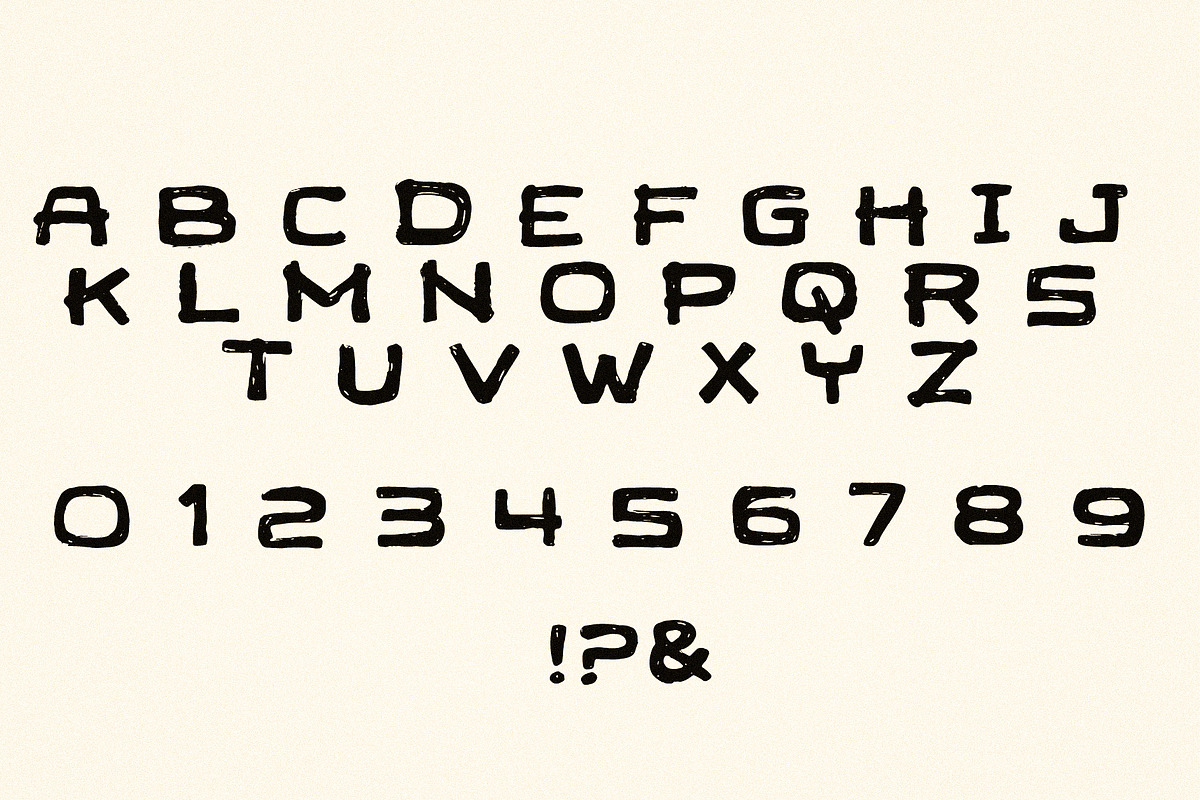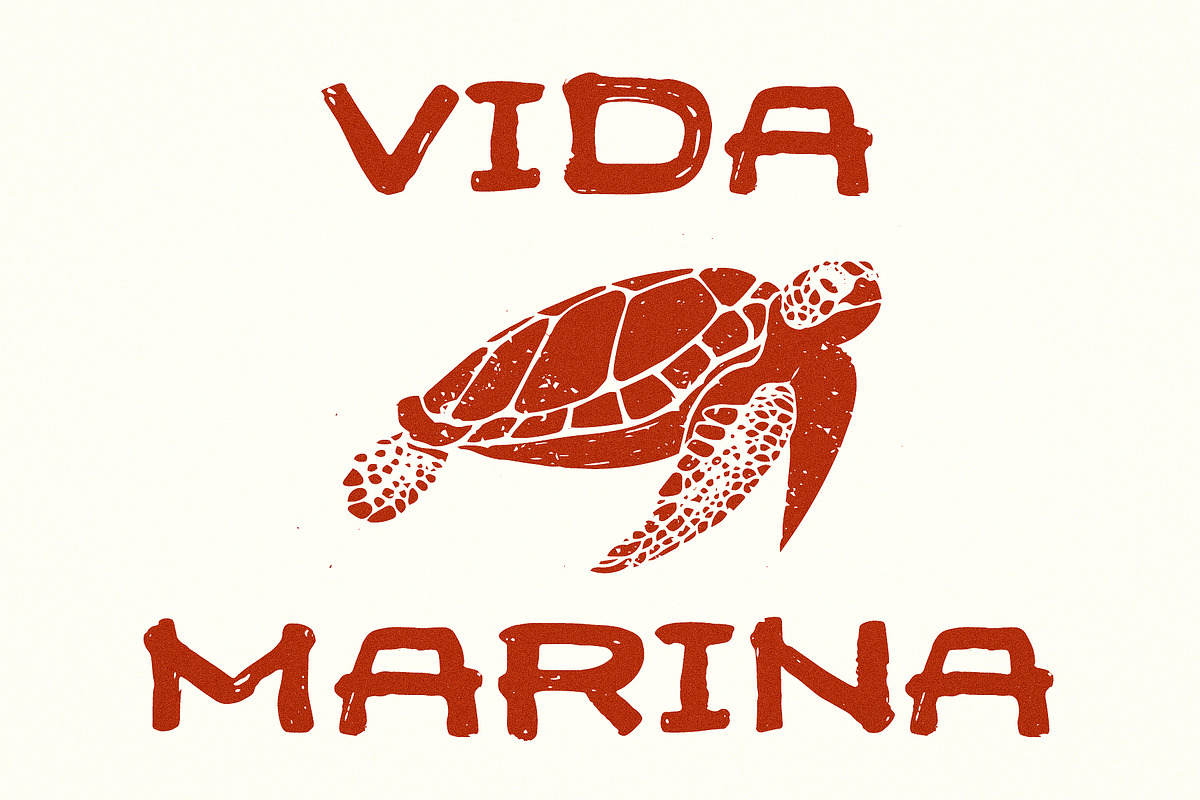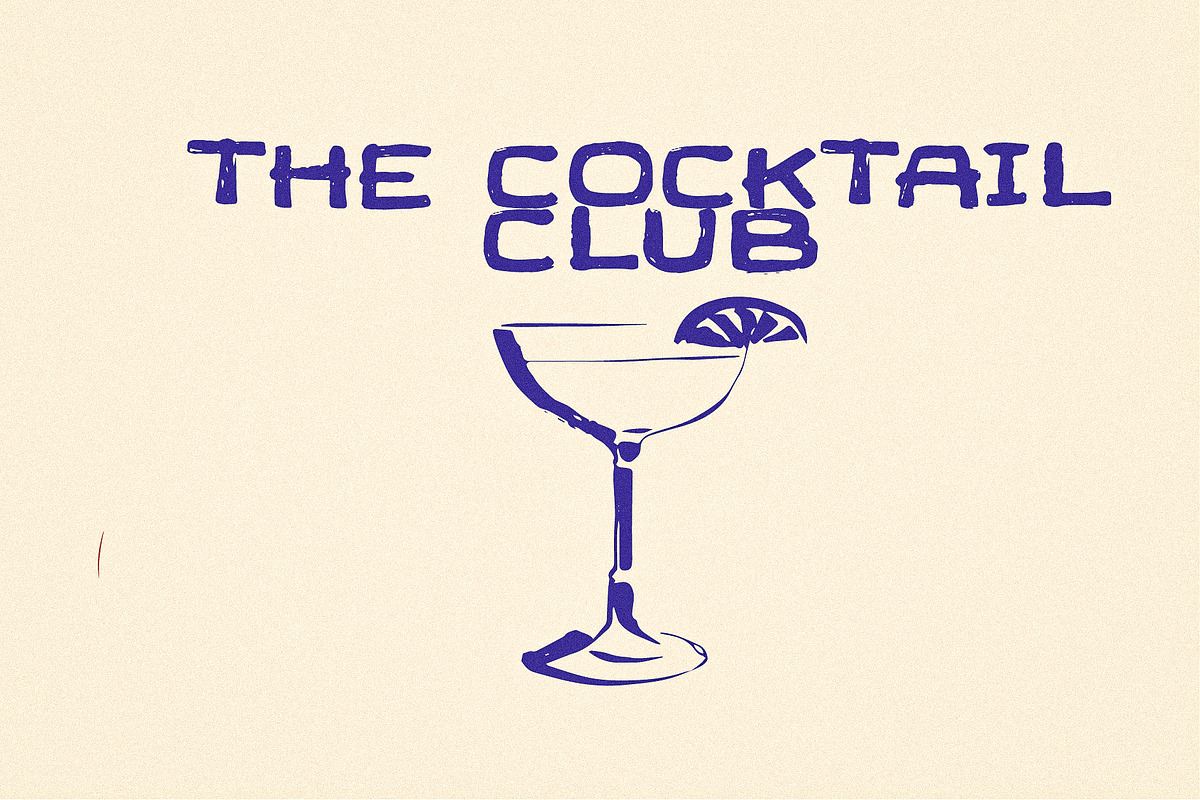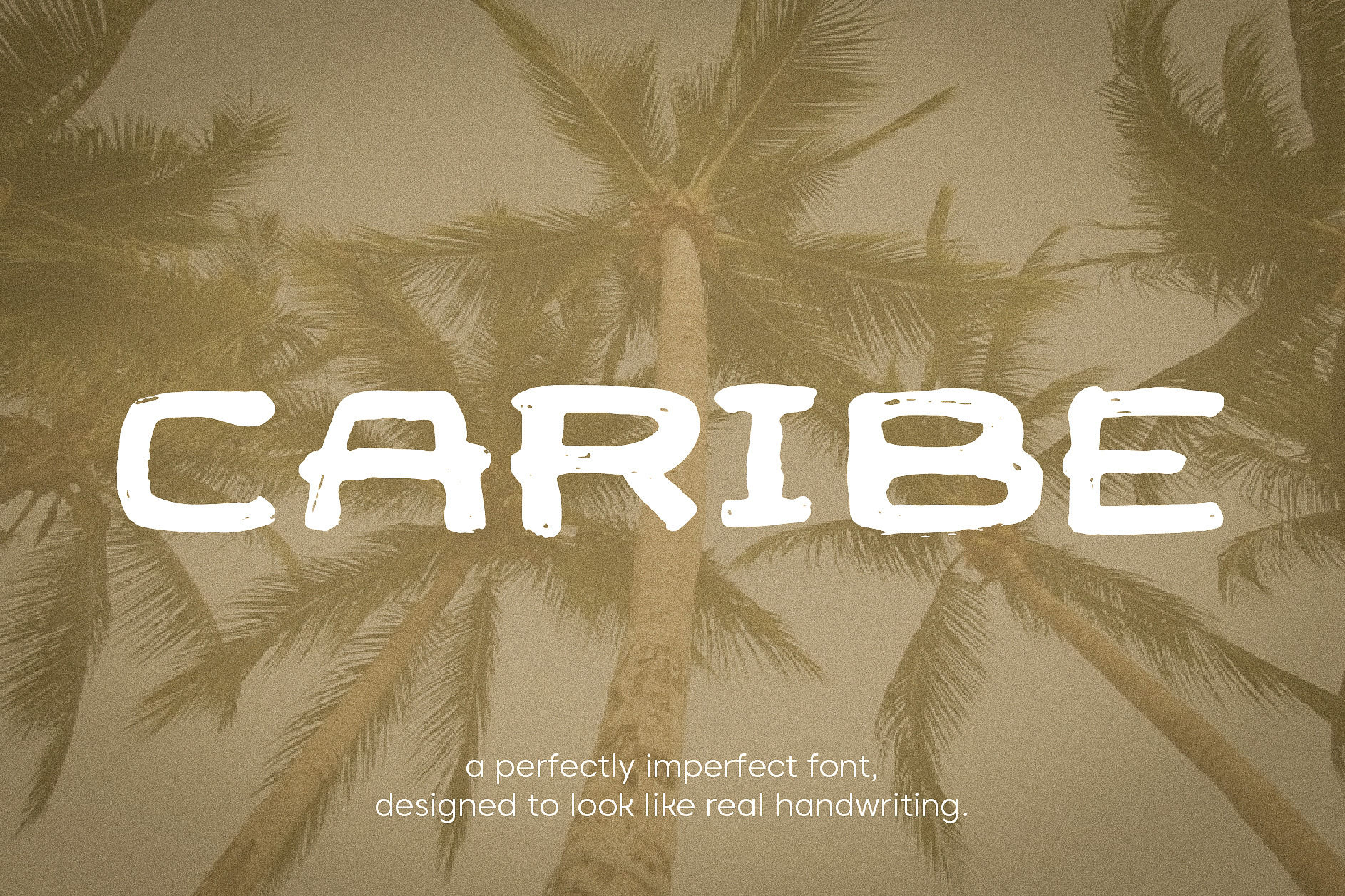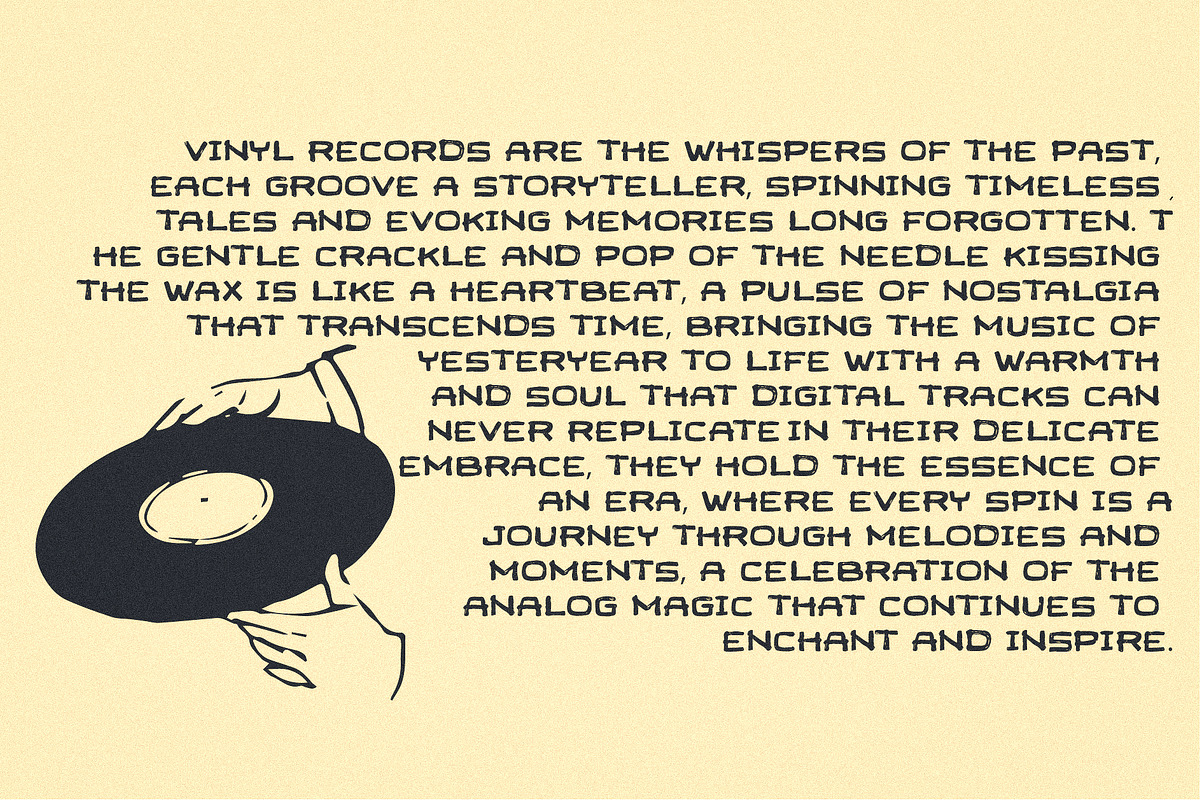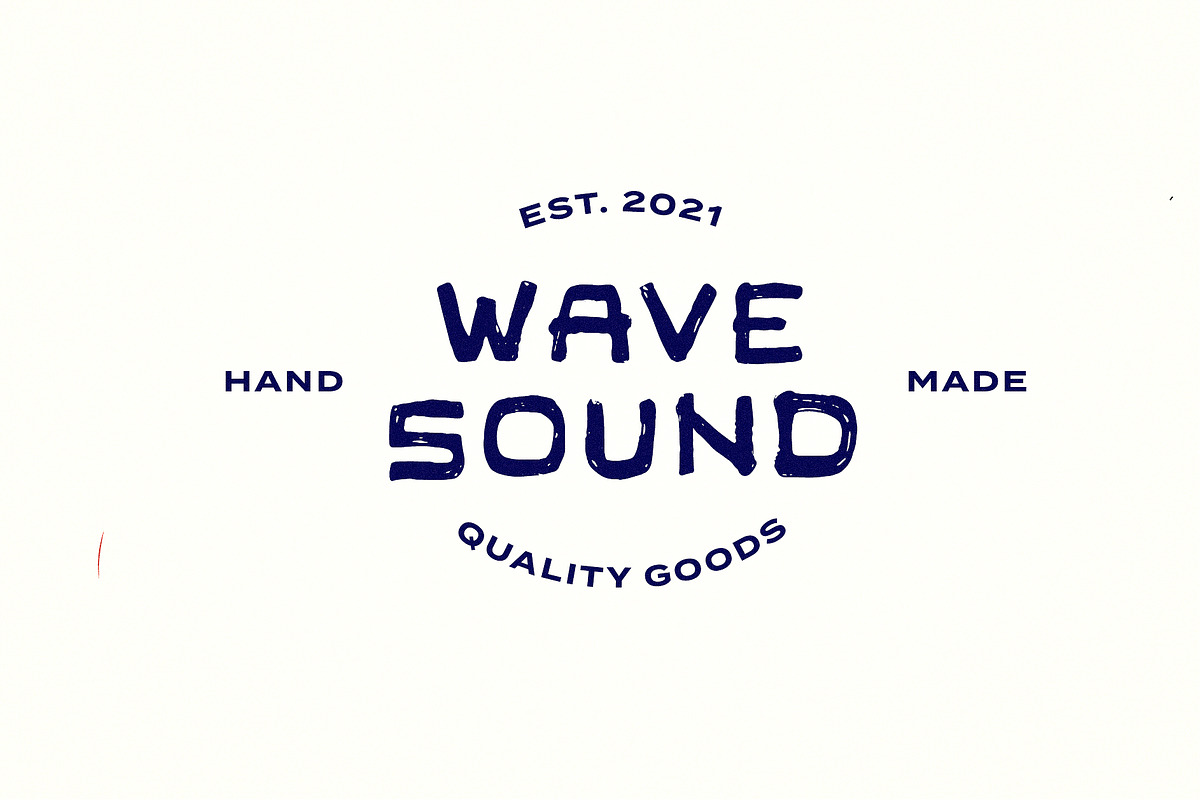
Caribe Handwritten Font + Free Goods
Caribe is a perfectly imperfect font designed to look like real handwriting. This organic script with a textured feel is perfect for greeting cards, wedding stationery, logos, modern websites, apparel design, and more.